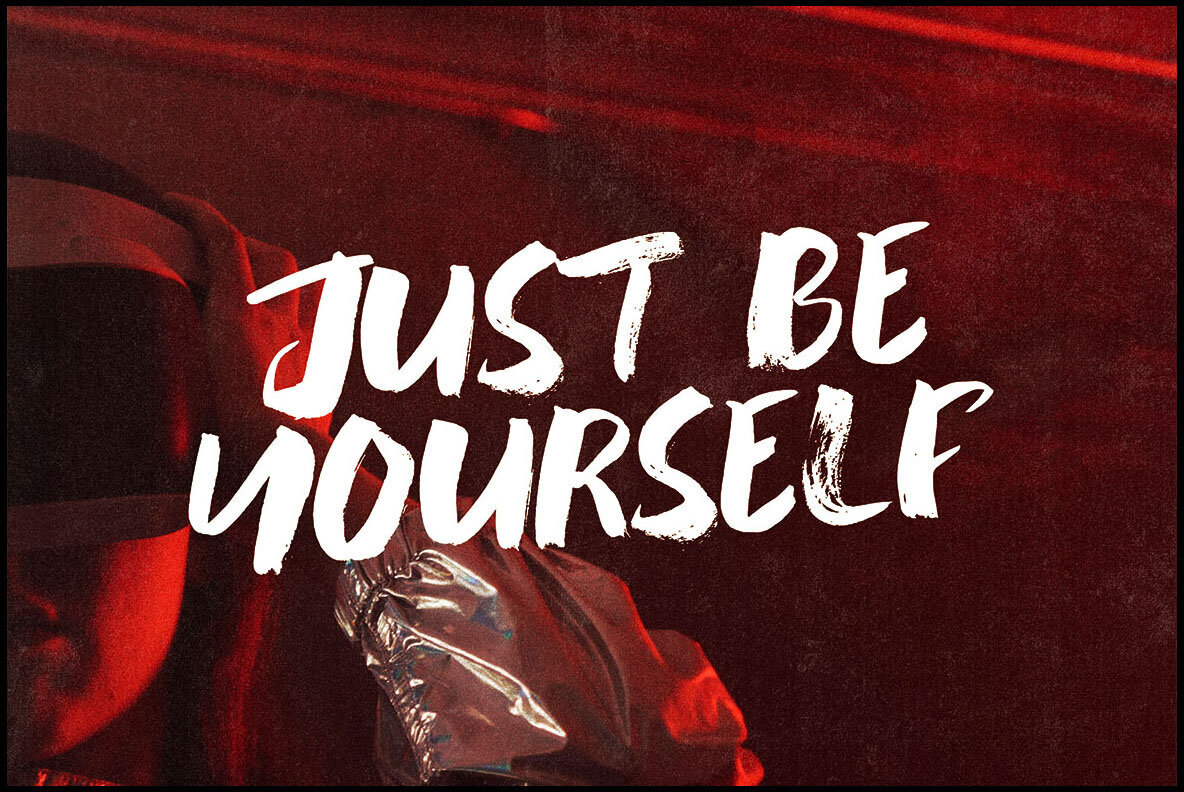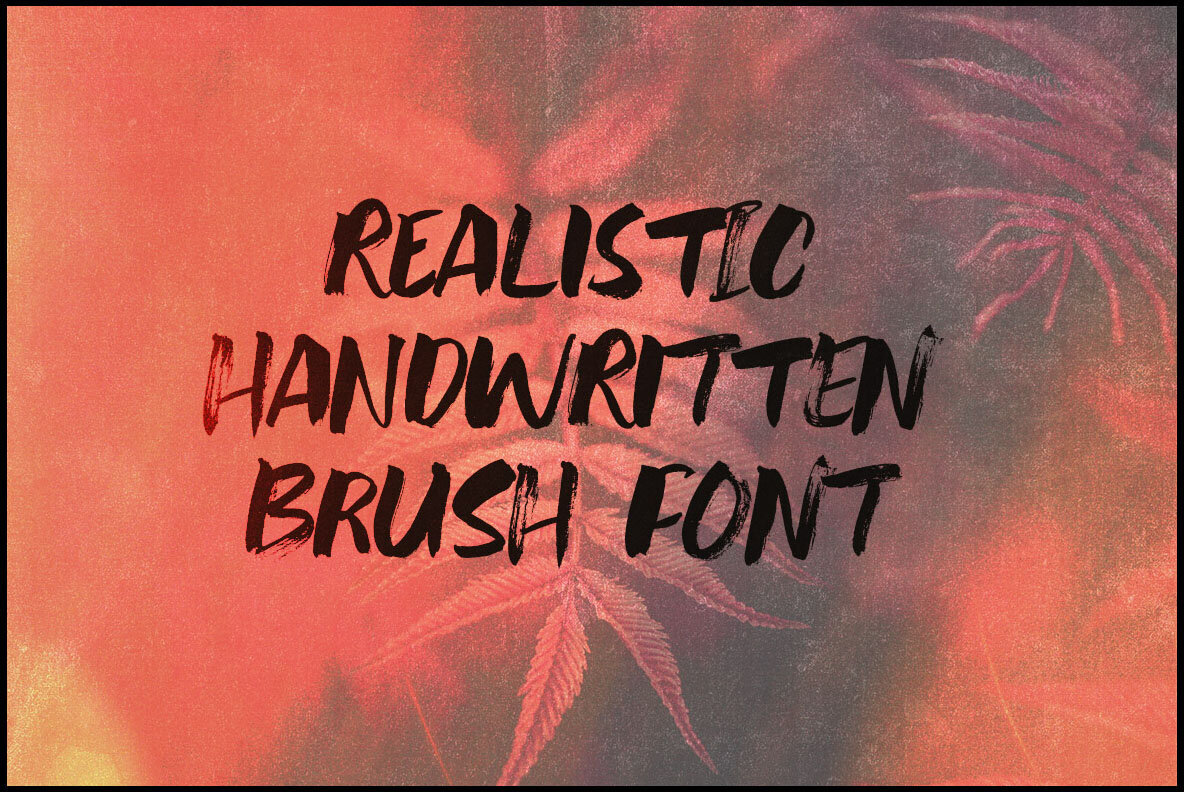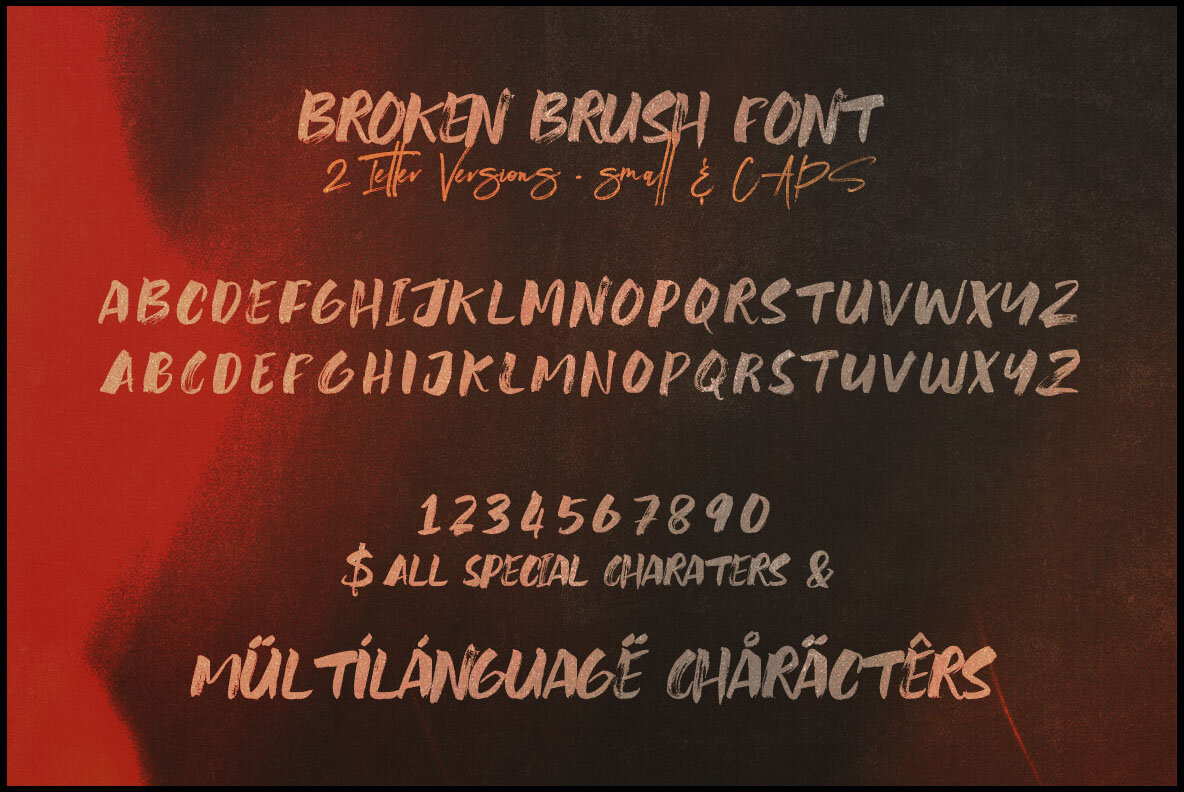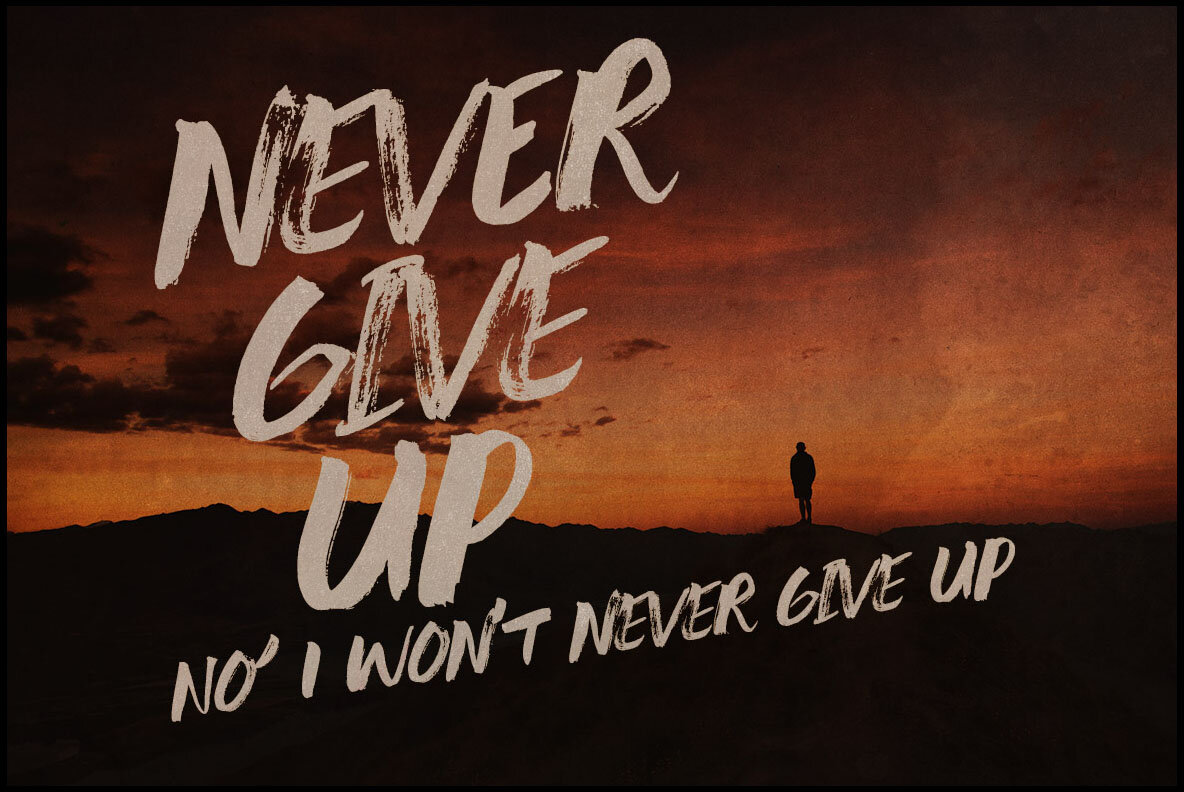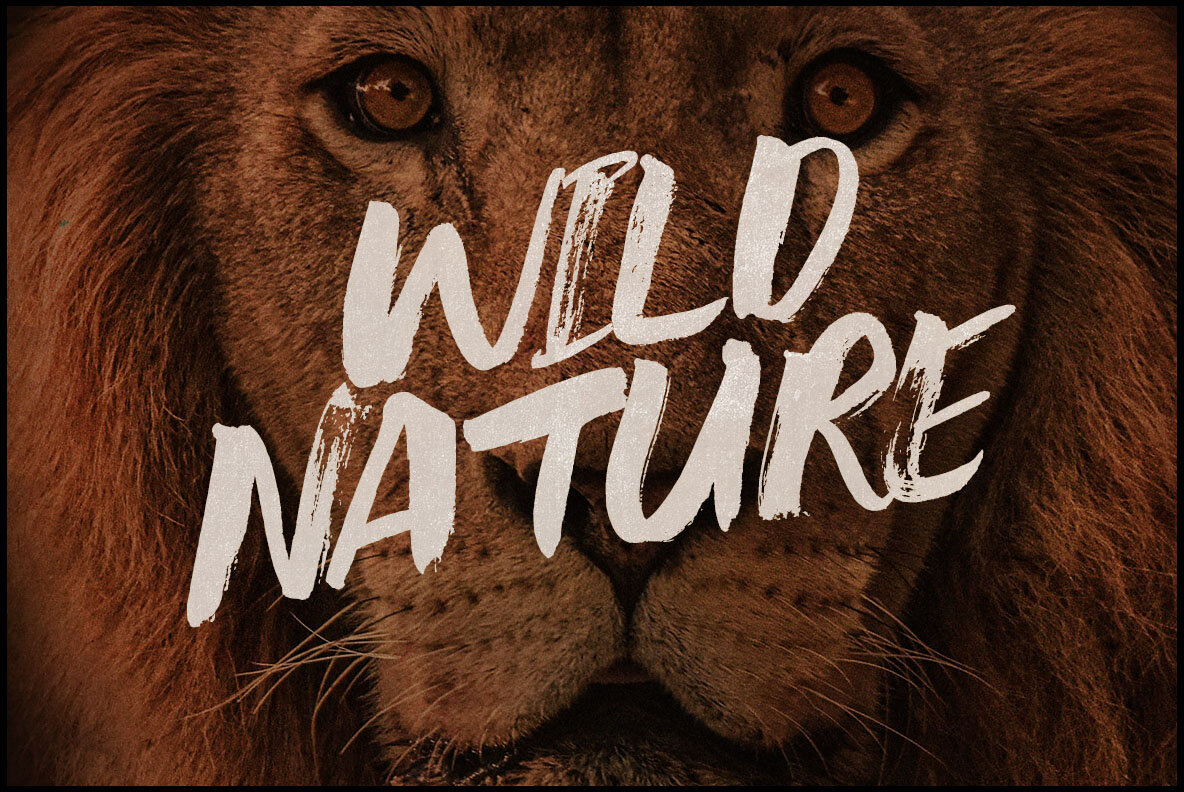
Broken Bold Brush Font
Broken Regular
Elevate your design projects with Broken Bold Brush, a striking sans display font that blends brush strokes with a grunge aesthetic. Perfect for urban, freestyle, or artistic creations, this font adds a bold edge to any design scenario. For any questions or support regarding Broken Bold Brush, feel free to reach out through my profile page. I'm here to help you make the most of this versatile font.Broken Bold Brush: Dynamic Sans Display Font